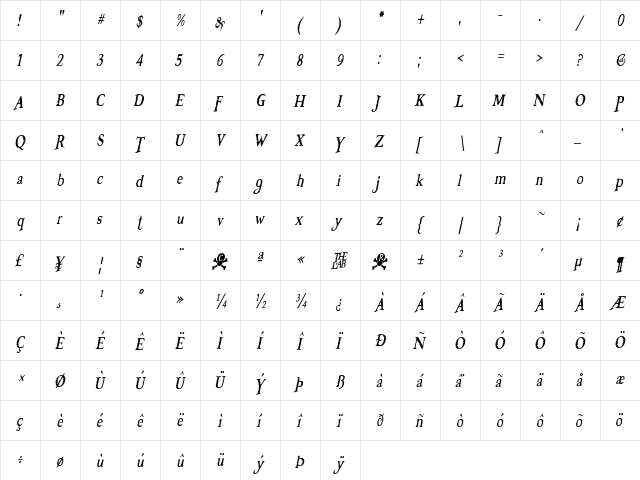
Booter - Zero Five Regular
| Designer | Outlines by Graham Meade, space geometry by Apostrophe ('). |
Booter - Zero Five offers clean, dependable letterforms without strong stylistic allegiance, making it a practical choice for designers who need flexibility.